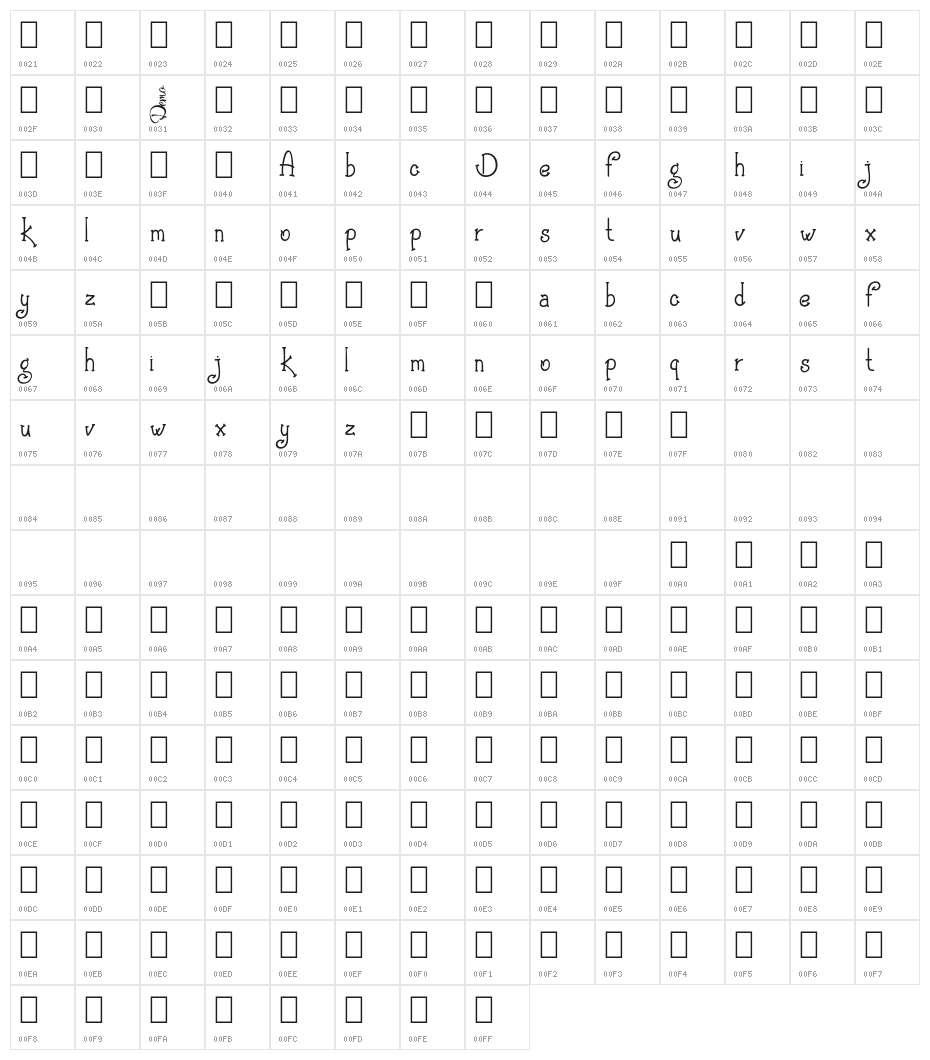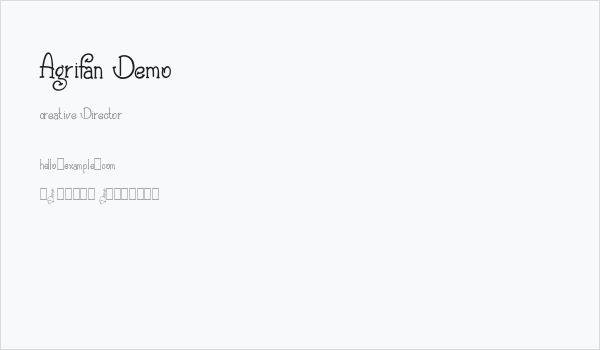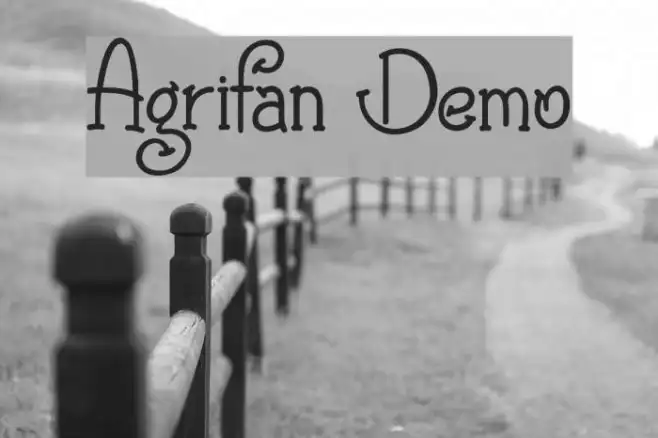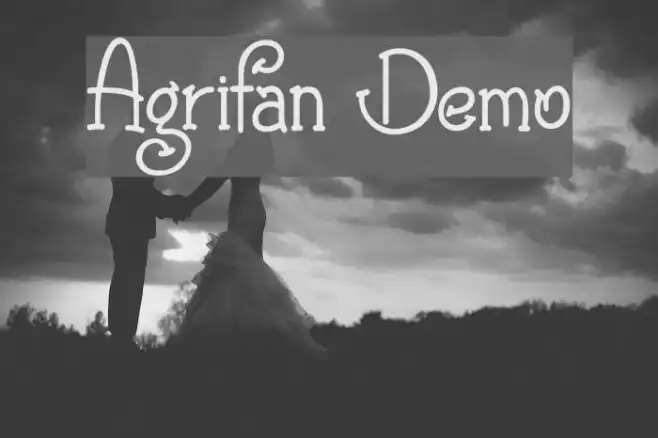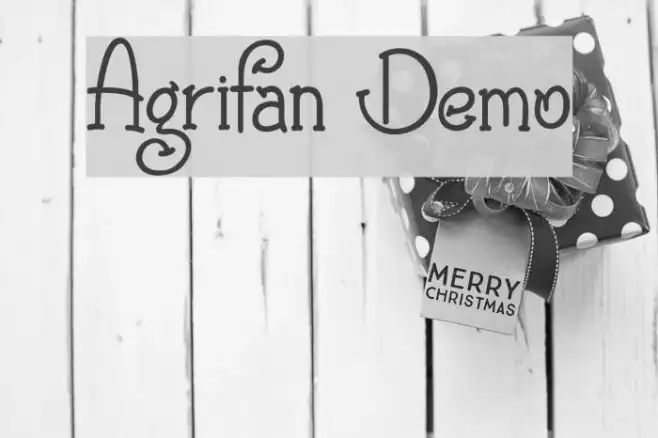
Agrifan Demo Font
Agrifan Demo Description
This font features a whimsical and decorative style with playful curls and loops integrated into the letterforms. The uppercase letters are particularly ornate, with exaggerated swirls that add a sense of movement and flair. The lowercase letters maintain a similar aesthetic but are slightly more restrained, allowing for readability while still retaining the font's unique character. The overall design is reminiscent of a fairy tale or fantasy theme, making it ideal for projects that require a touch of magic or creativity. The font's distinctiveness is further enhanced by its consistent stroke width, which provides a balanced and cohesive appearance across all characters.
| Proposed Projects | Perfect for children's book covers, fantasy-themed invitations, or whimsical branding materials. |